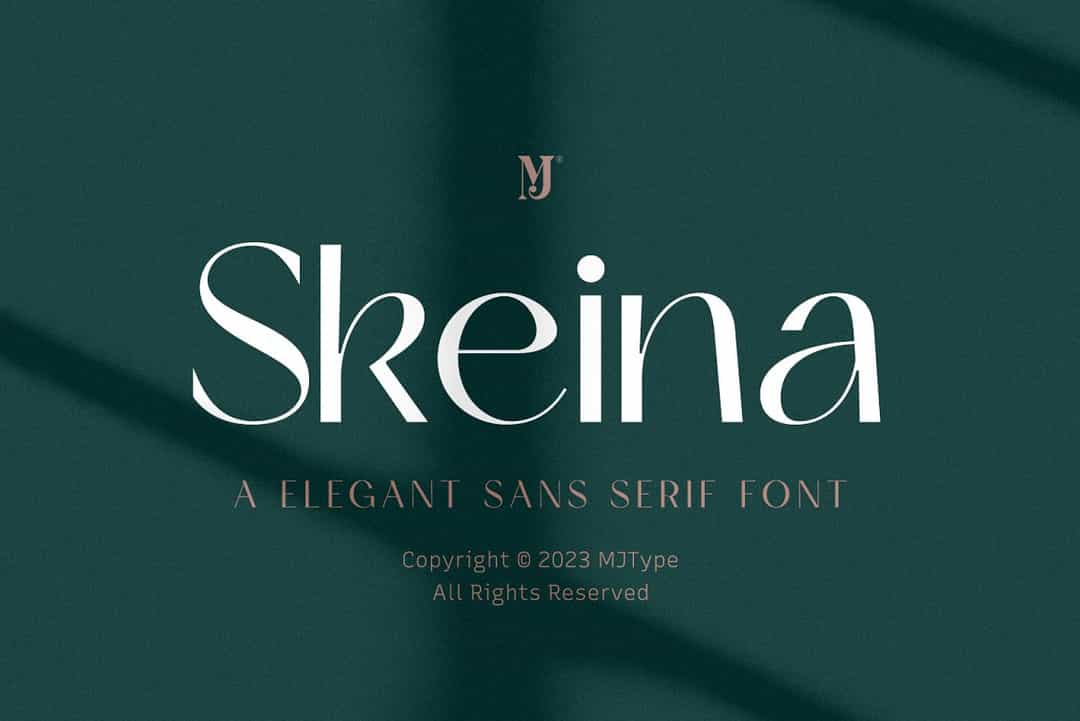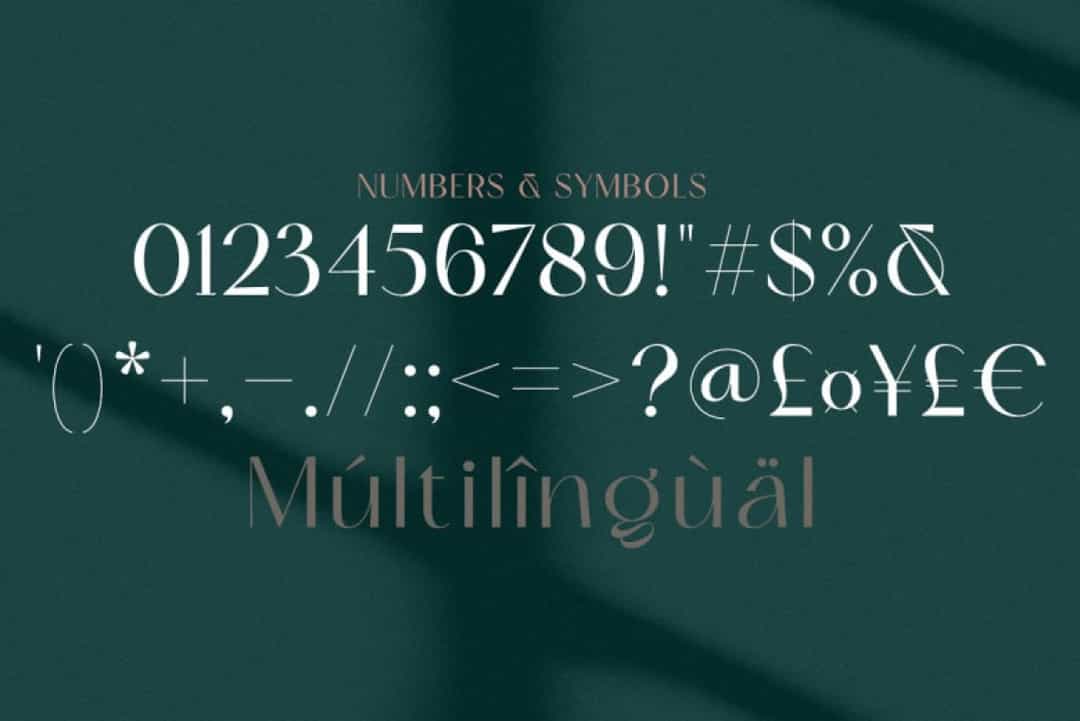
Skeina can be described as a refined sans-serif typeface that seamlessly merges modern style and tradition. Crafted to offer you maximum flexibility and sophistication in all projects undertaken, its use will bring only elegance and clarity wherever it’s applied.